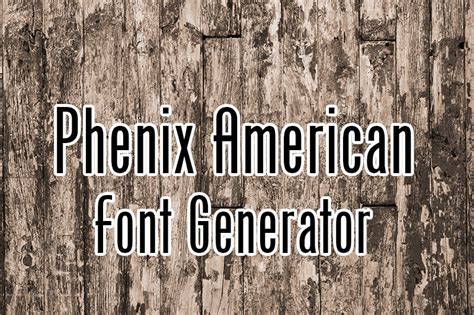
Phenix American Font Generator. Web download phenix american font free! Web the phenix american font is a headline design with condensed sans serif characters that look good on corporate stationery and packaging as well as on magazine and brochure covers.
Web the phenix american font is a headline design with condensed sans serif characters that look good on corporate stationery and packaging as well as on magazine and brochure covers. Download phenix american regular for free. The font used on the actual campaign is phenix american and i'm looking for a free version of that font or one that is closest to that style. Web download phenix american font free! View sample text, character map, user rating and review for phenix american regular. Generate cool and amazing fonts by using phenix american font generator. It's not too distinct other than the letters are slightly. Simply generate text images and share them anywhere you like. Web text generated by us for you.
Generate cool and amazing fonts by using phenix american font generator. Generate cool and amazing fonts by using phenix american font generator. The font used on the actual campaign is phenix american and i'm looking for a free version of that font or one that is closest to that style. Simply generate text images and share them anywhere you like. Download phenix american regular for free. Web text generated by us for you. Web the phenix american font is a headline design with condensed sans serif characters that look good on corporate stationery and packaging as well as on magazine and brochure covers. It's not too distinct other than the letters are slightly. View sample text, character map, user rating and review for phenix american regular. Web download phenix american font free!